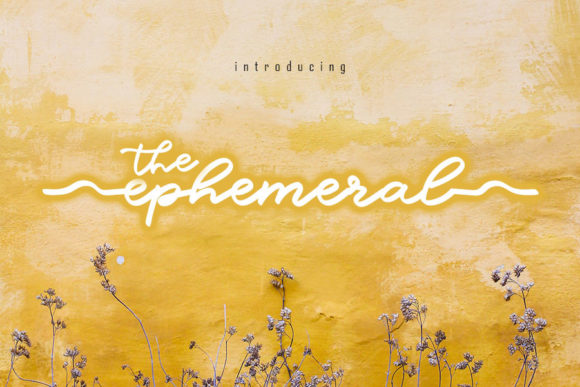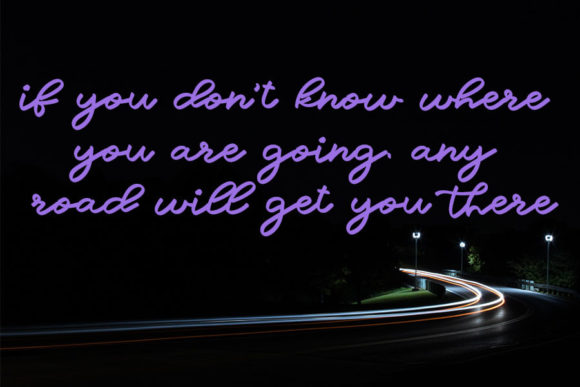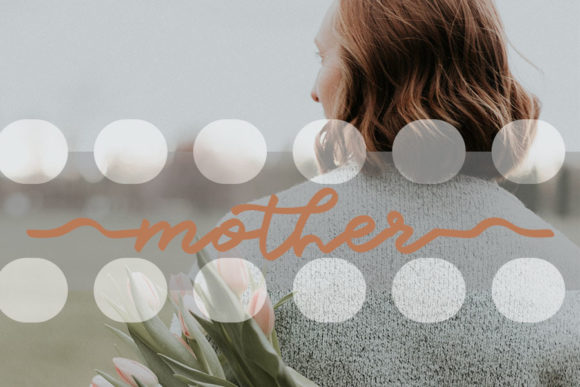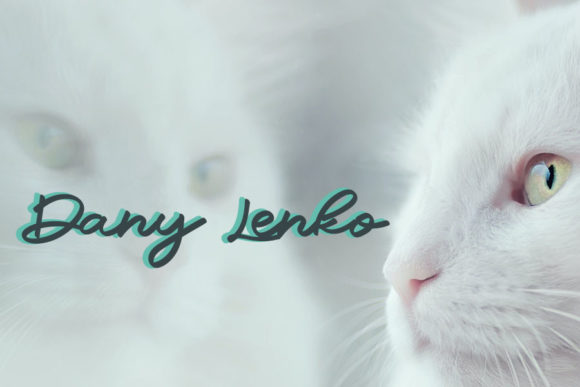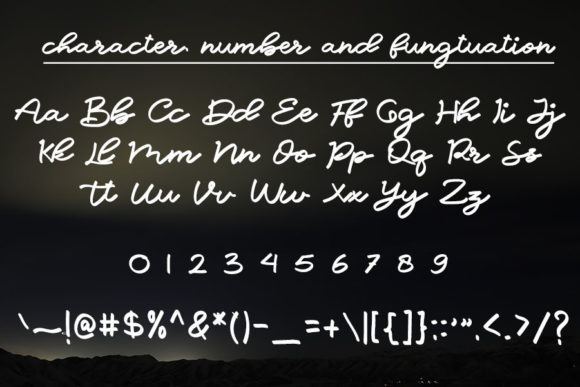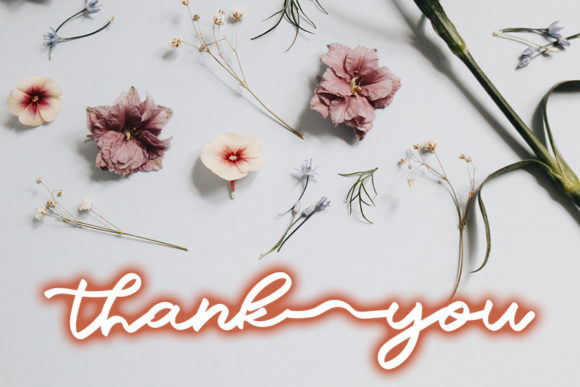
The Ephemeral Font
About The Ephemeral Font
The Ephemeral is a romantic and sweet calligraphy typeface with characters that dance along the baseline. It will add a luxury spark to any design project that you wish to create! This font is PUA encoded which means you can access all of the amazing glyphs and ligatures with ease!